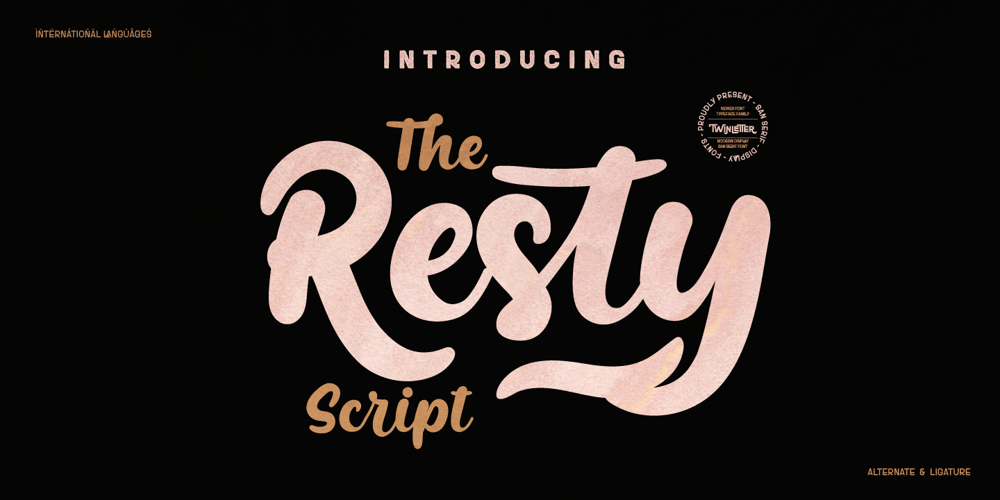
Resty
Resty font
Resty Font Family was designed by Rozikan and published by Twinletter. Resty contains 1 styles and family package options. Resty is a bold script font that is characterized, unique and bold.This font is designed with a natural touch of handwriting refined to create portions and compositions that suit your needs.Of course, this font designed with natural hand touch has alternative features, ligatures and also supports multi-language, So this font is suitable for crafts, logotypes, posters, titles, banners, wedding invitations, product packaging logos, quotes, social media page covers, book covers, and more.what are you waiting for start creating special projects with this font!